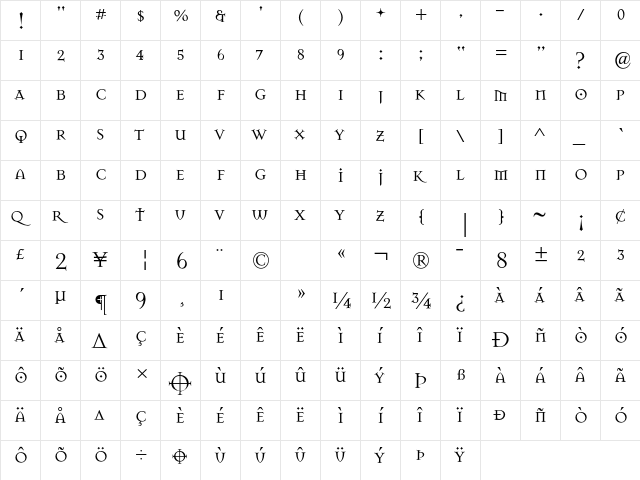
MasonSuper Roman
Design Context for MasonSuper Typeface
MasonSuper offers clean, dependable letterforms without strong stylistic allegiance, making it a practical choice for designers who need flexibility.